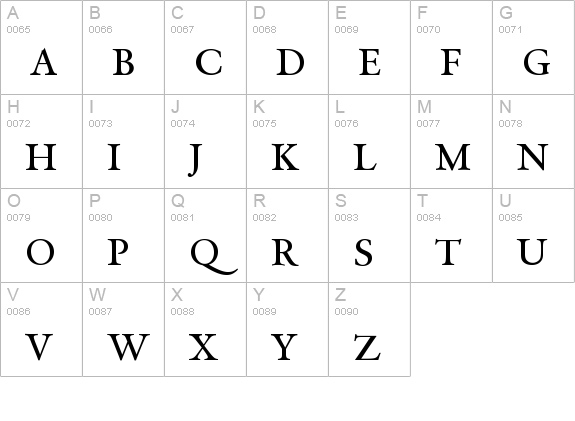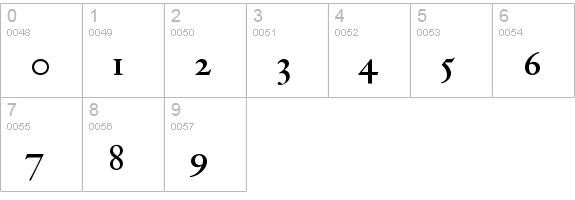
DTLVandenKeereSDMedium Font Details
The DTLVandenKeereSDMedium font is a classic and elegant typeface that exudes sophistication and style. With its timeless design and clear, legible characters, this font is perfect for a wide range of design projects, from branding to editorial layouts. Its medium weight strikes the perfect balance between impact and readability, making it suitable for both display and body text. What sets the DTLVandenKeereSDMedium font apart is that it is available for free download at FontsMarket.com. This means that you can easily access this high-quality font without any cost, making it a valuable addition to your font collection. Whether you're a designer looking for a versatile typeface or a business owner seeking a professional font for your marketing materials, DTLVandenKeereSDMedium is a top choice that won't break the bank. Don't miss out on the opportunity to enhance your projects with the DTLVandenKeereSDMedium font - download it for free today at FontsMarket.com and elevate your designs with its refined charm and versatility.